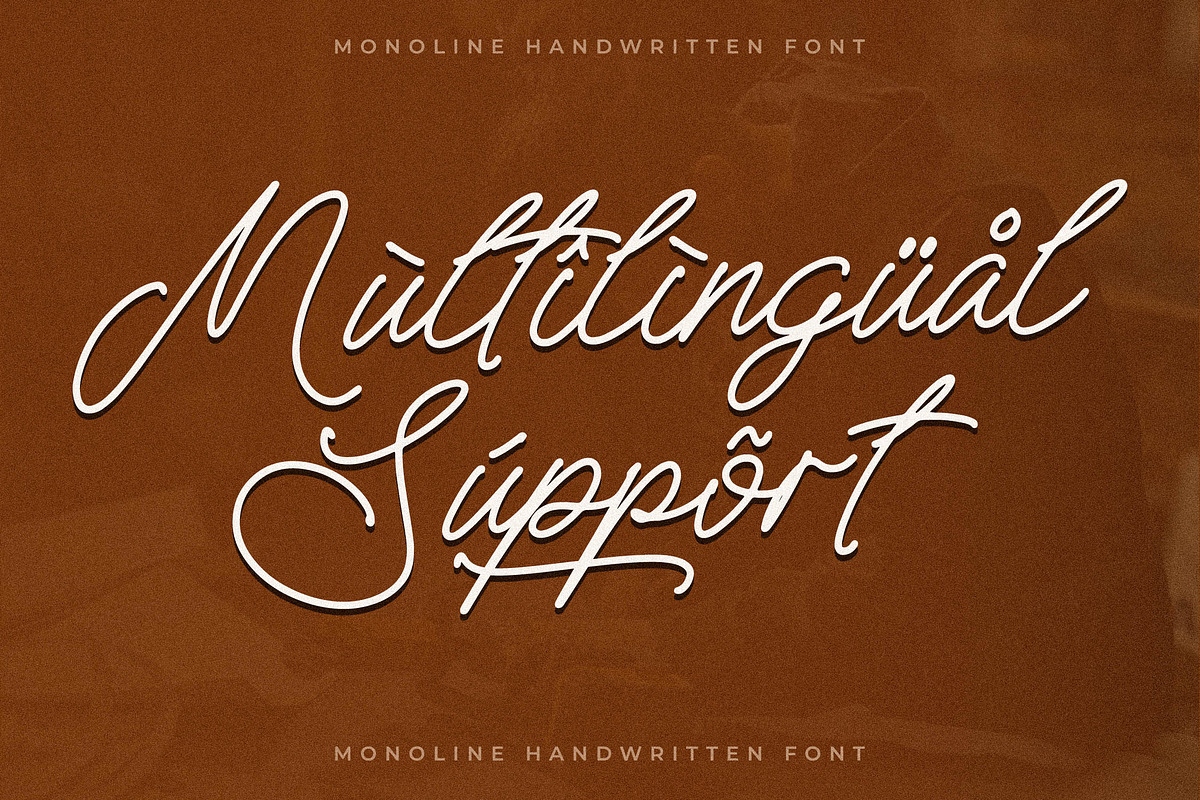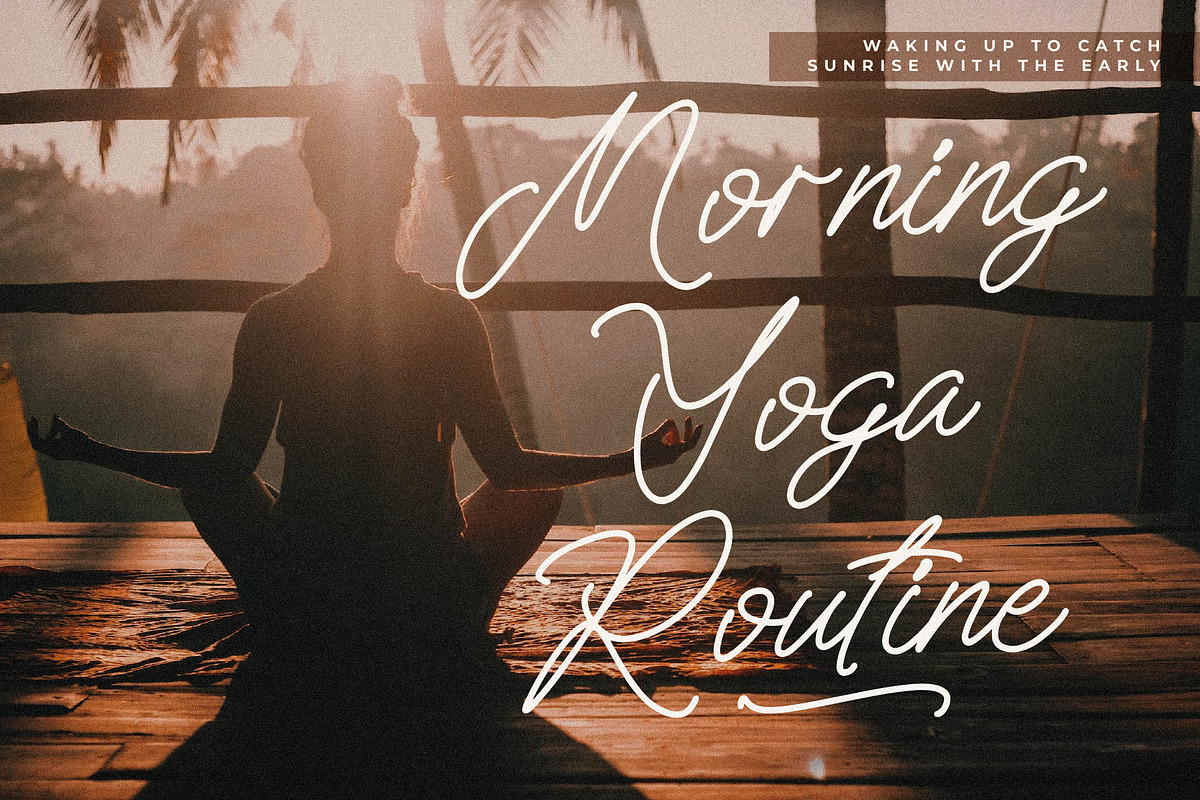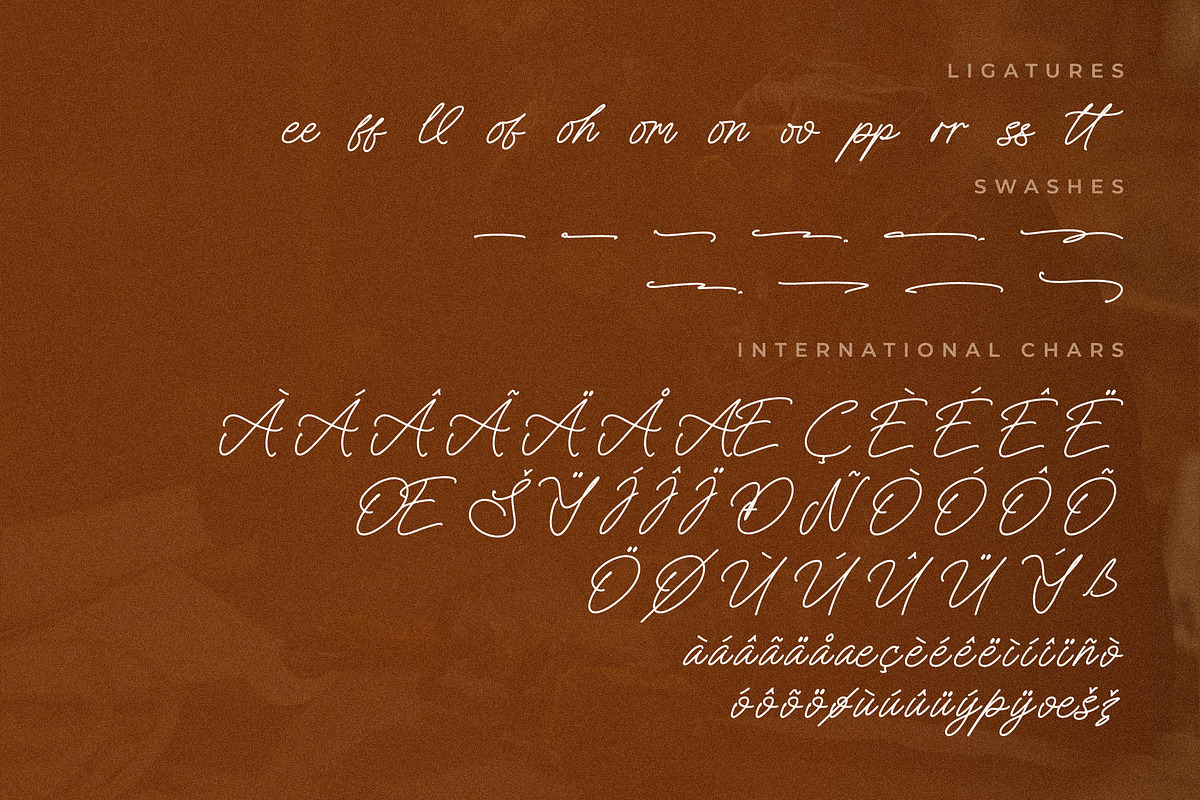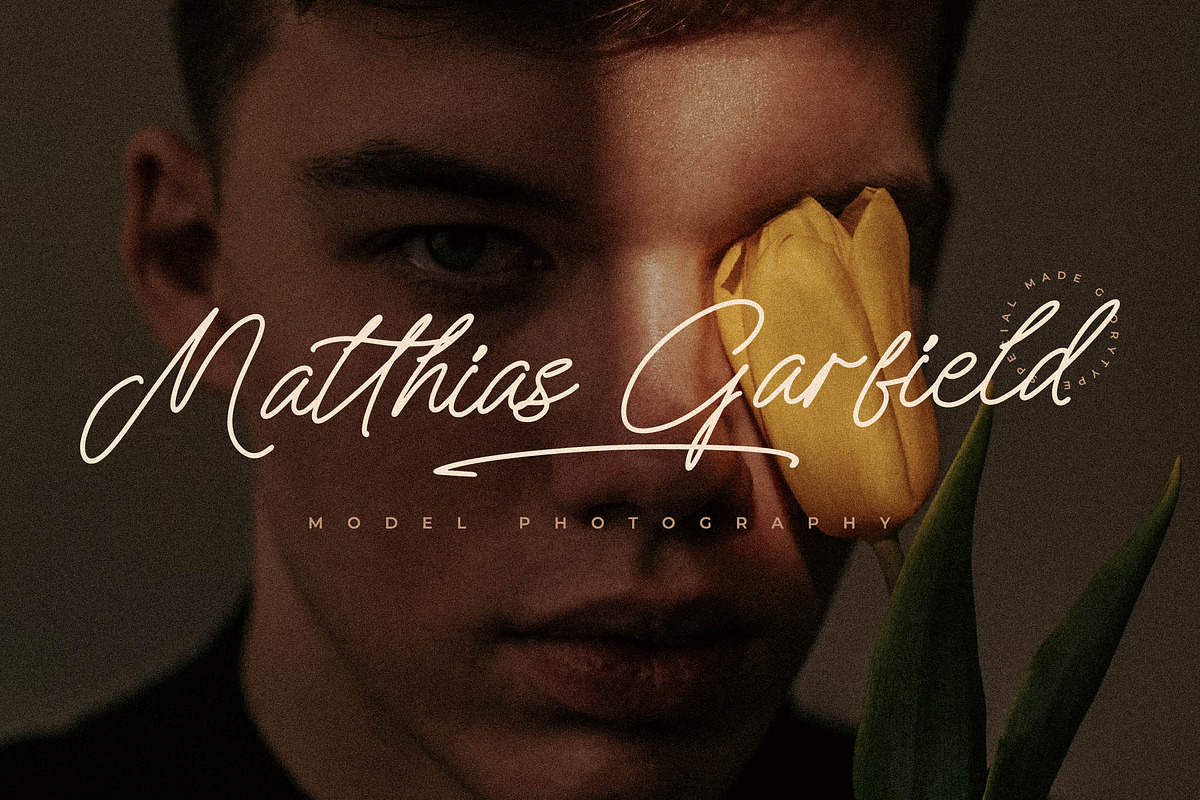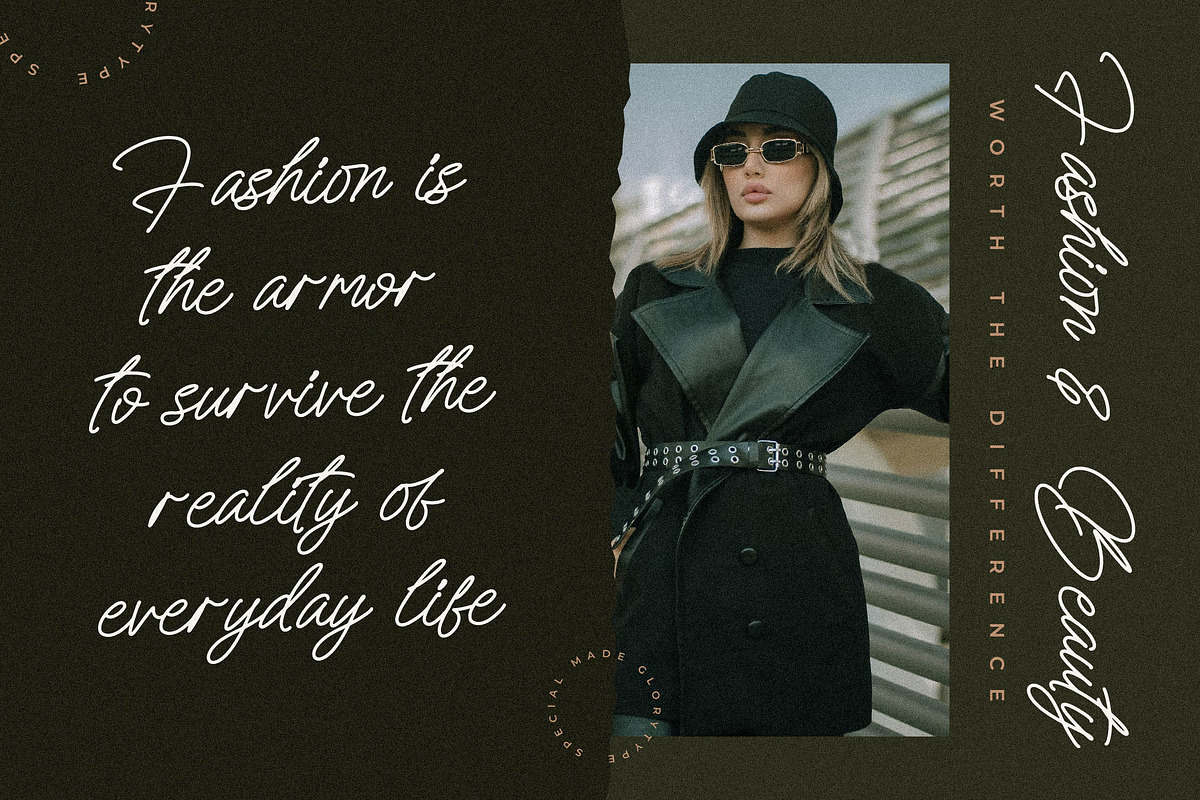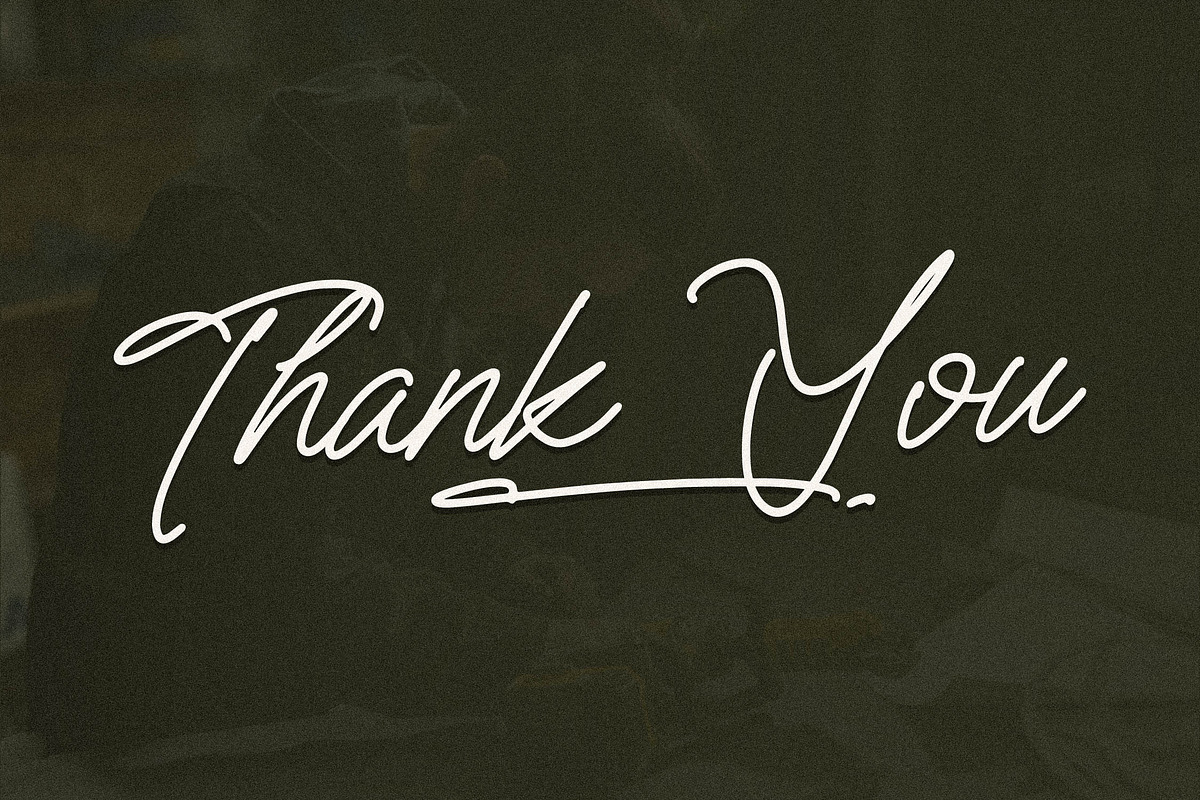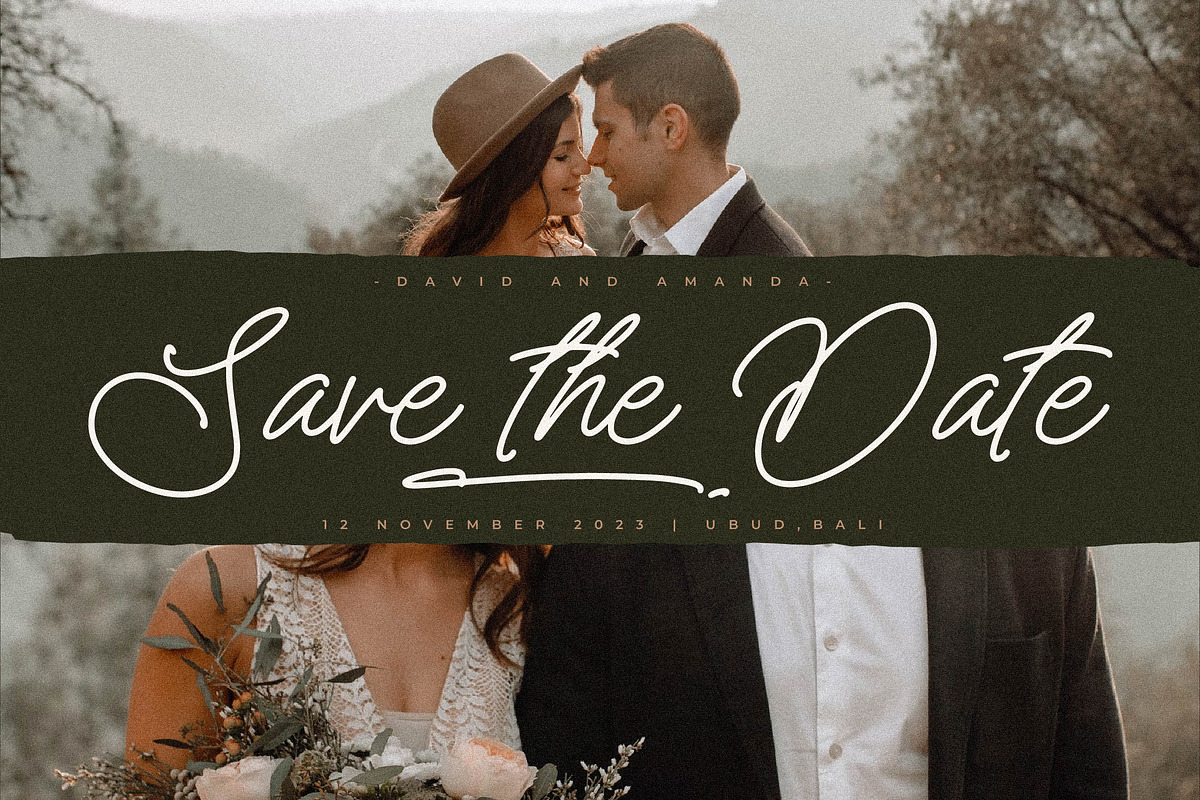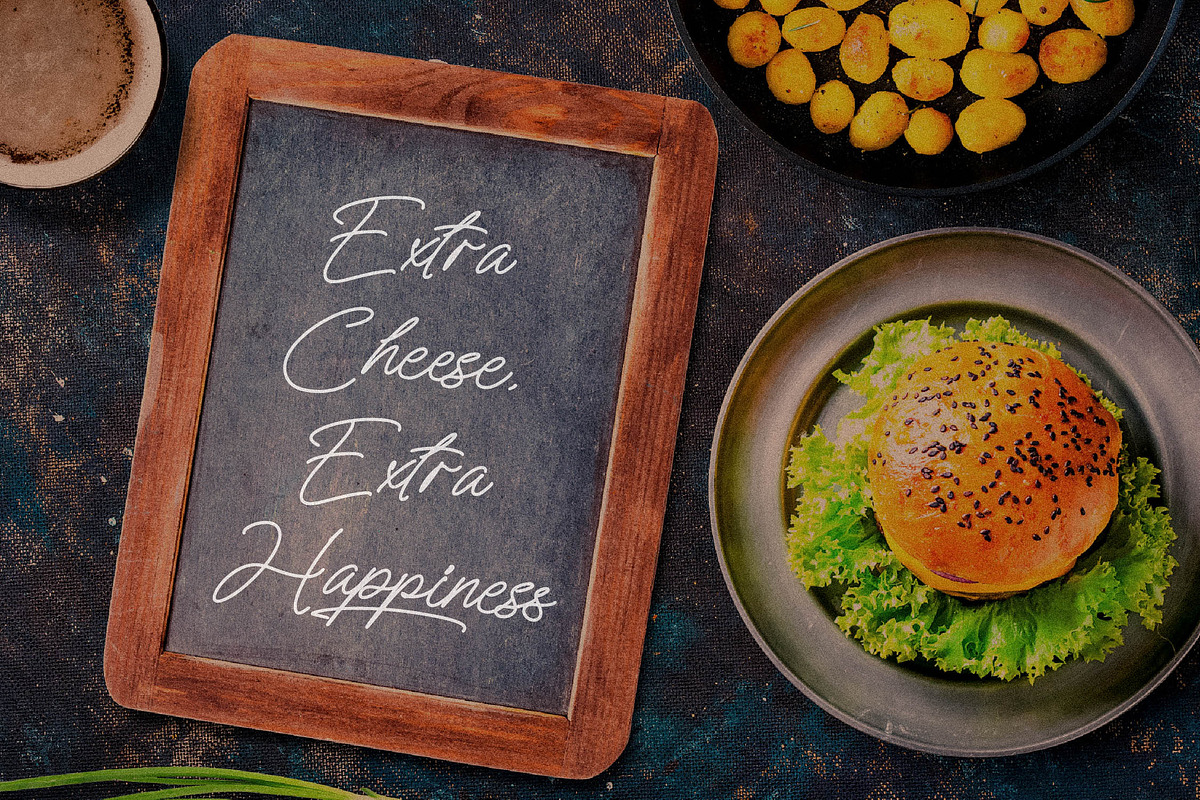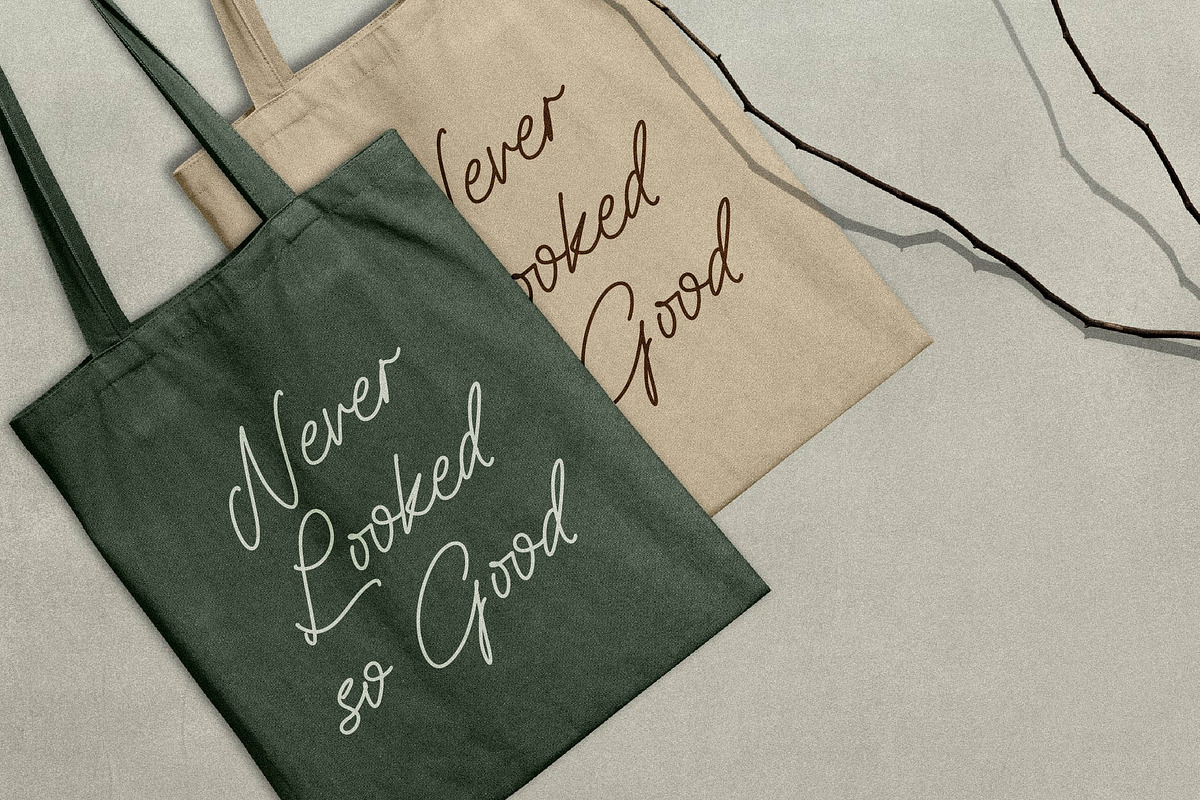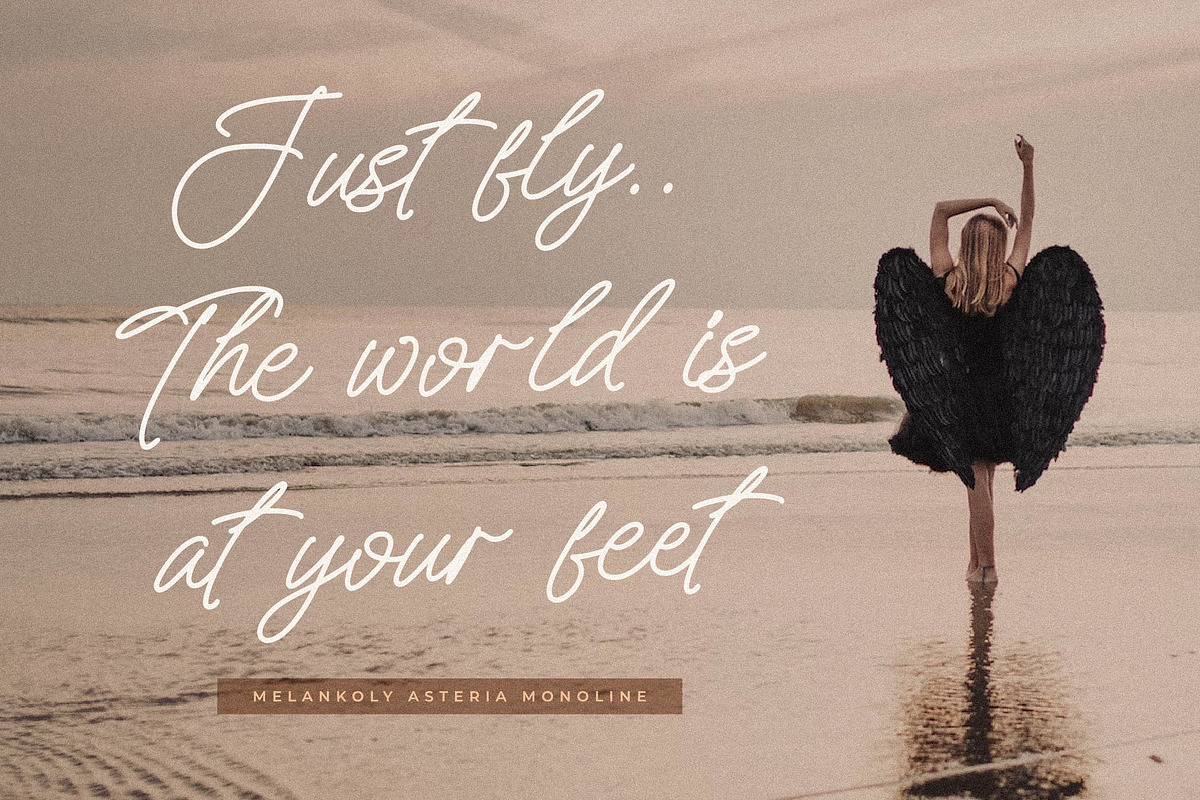
Melankoly Asteria Monoline Font
Melankoly Asteria – Monoline Handwritten Font , from Glorytype Studio, suitable for any projects such as: logos, branding projects, homeware designs, product packaging, mugs, quotes, posters, shopping bags, t-shirts, book covers, name card, invitation cards, greeting cards, label, photography, watermark, special events, and all your other lovely projects that need a beautiful script taste.